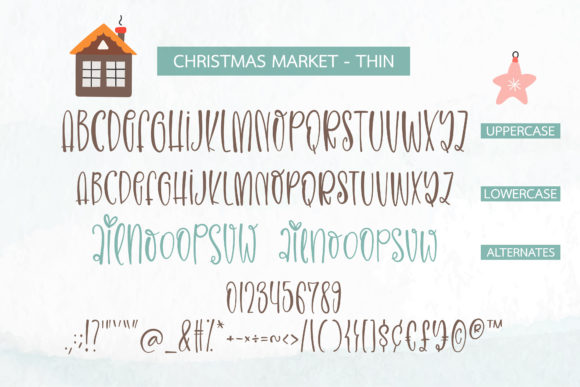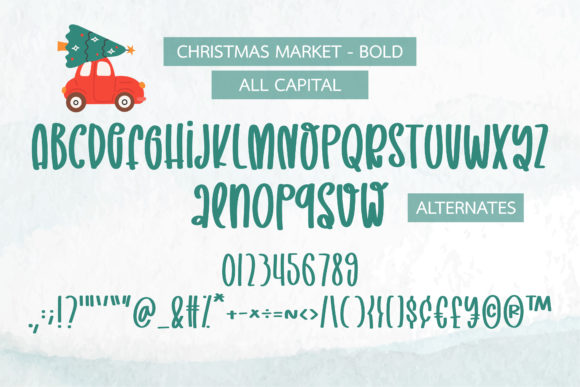
Christmas Market Font
Christmas Market is a cute and relaxed handwritten font duo. Its natural and unique style makes it suitable for a variety of design ideas. Add it confidently to your projects, and you will love the results.